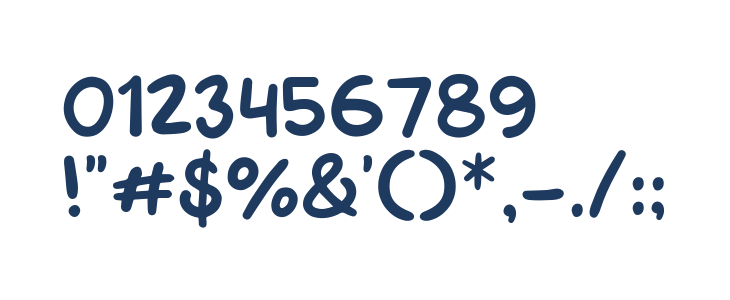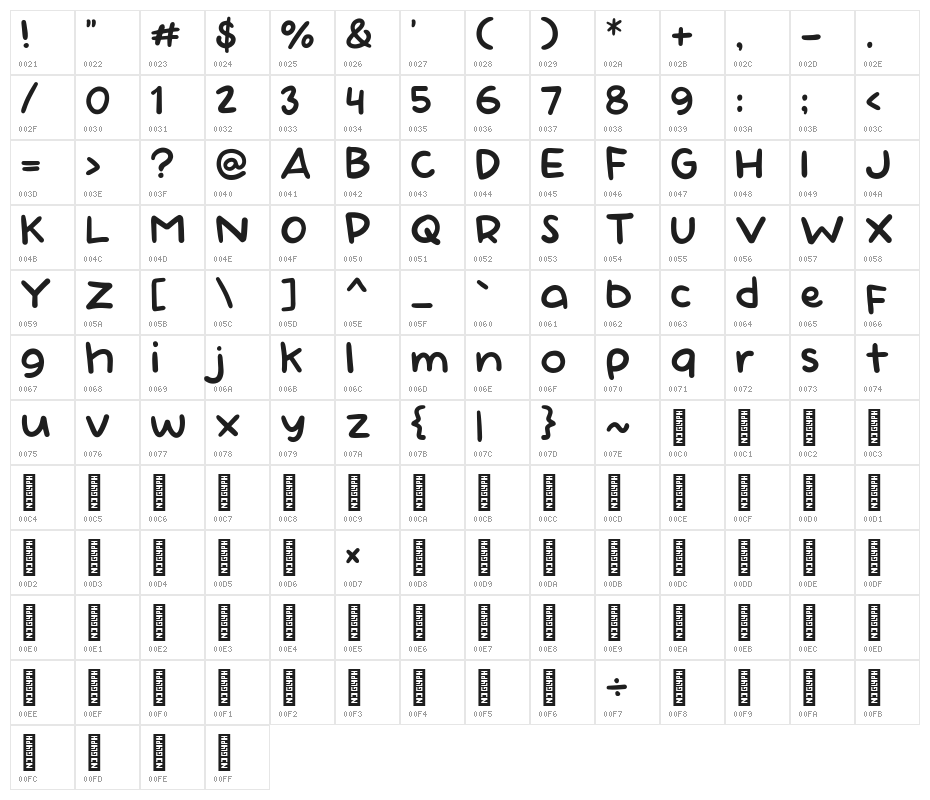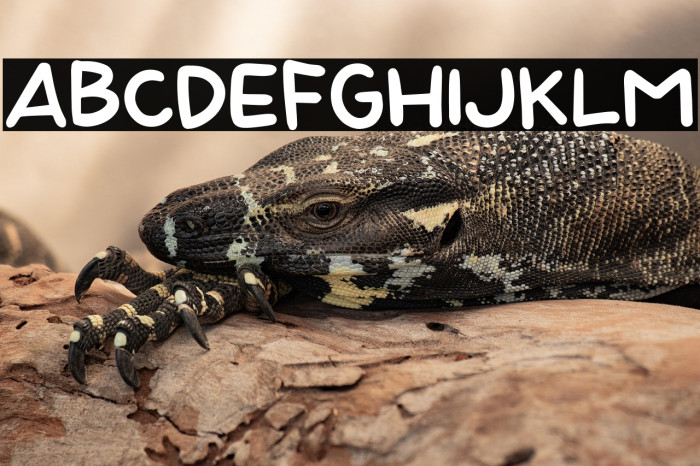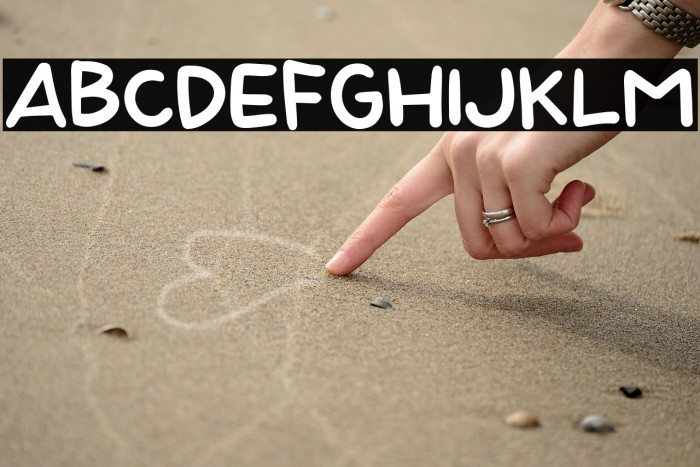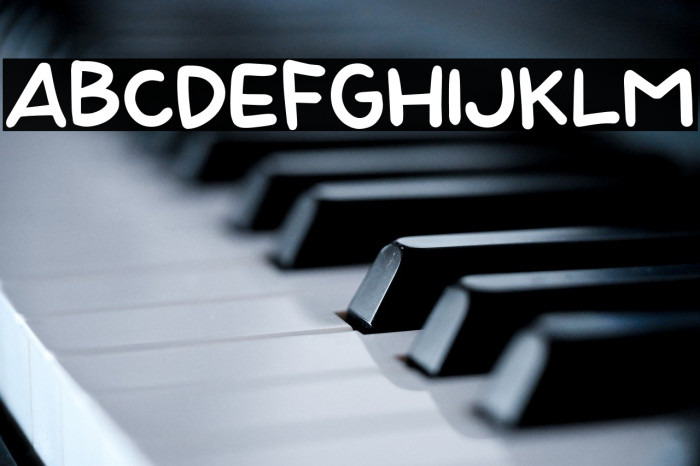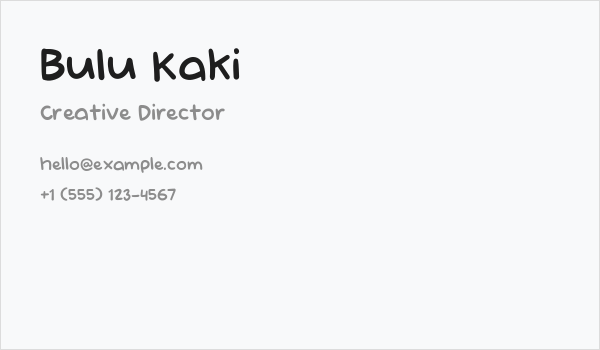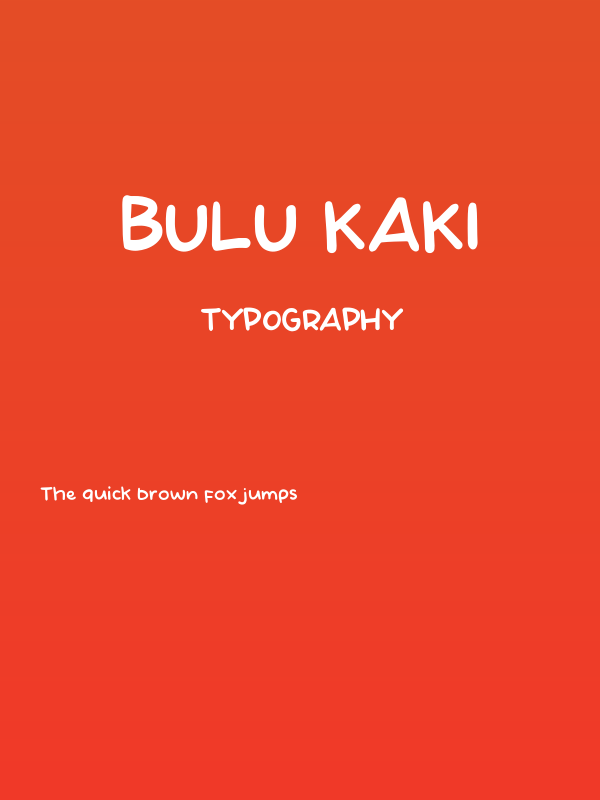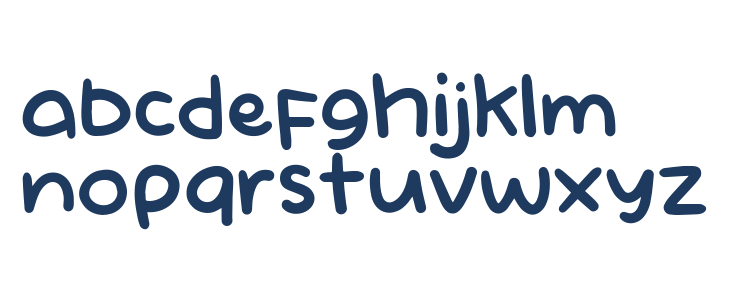
Bulu Kaki Font
Bulu Kaki Description
This playful and rounded font exudes a friendly and approachable vibe, characterized by its thick, uniform strokes and smooth curves. The letters are slightly irregular, adding a whimsical touch that makes it stand out. Its bold presence is balanced by the soft, rounded edges, making it suitable for a variety of creative applications. The numbers and special characters maintain the same playful style, ensuring consistency across all text elements. This font is ideal for projects that require a fun and informal tone, such as children's books, playful branding, or casual invitations.
Overall StylePlayful
Proposed ProjectsChildren's books, playful branding, casual invitations, and creative posters.